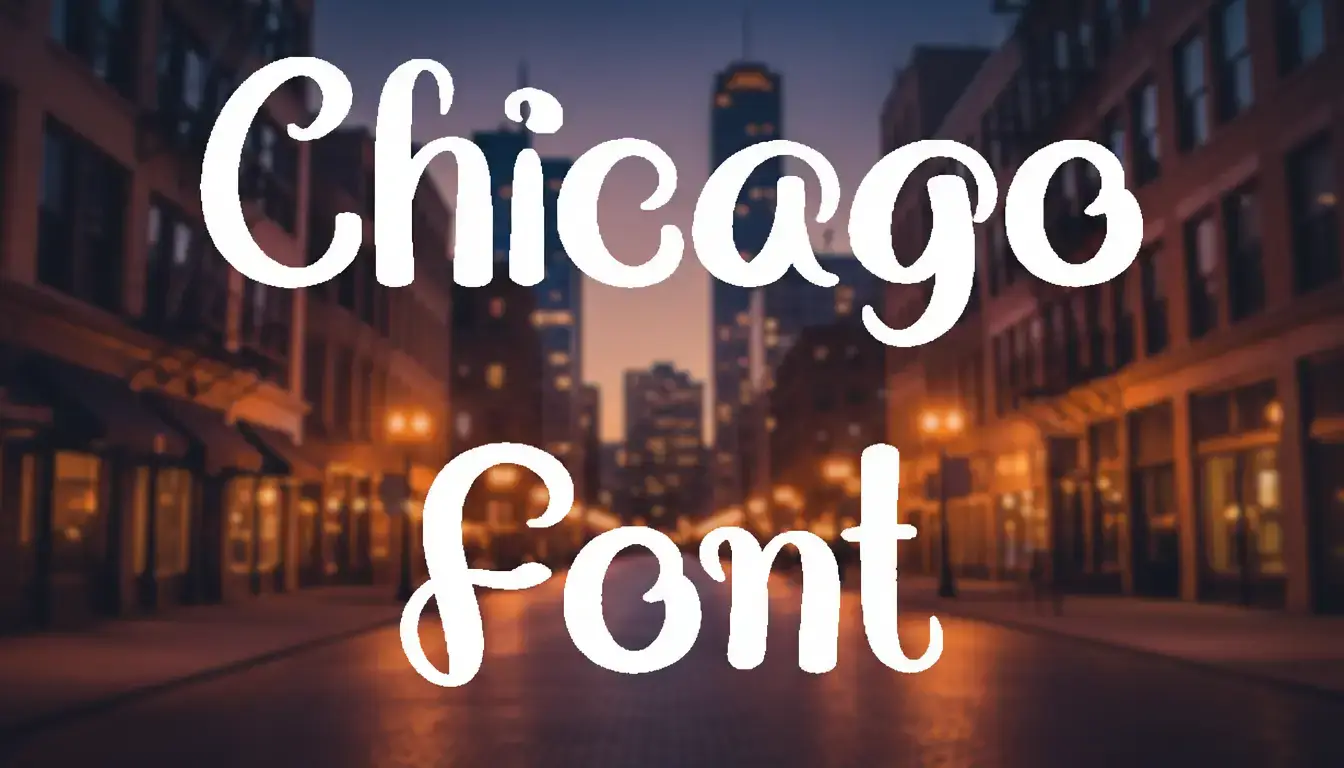
Chicago Font
Chicago
Chicago is a fancy font. It's a decorative display font with plenty of personality, made to grab attention. It's a free download, and you can try it with your own text in the preview above first.
What You Can Type With Chicago
You get every letter from A to Z in both cases and all the numbers from 0 to 9, which means Chicago can handle full sentences, dates and prices. Everyday marks like &, !, ? and @ are there too. Thanks to its accented letters, it also works for Spanish, French, German, Portuguese and Italian, not just English.
Where Chicago Works Best
Chicago is a natural fit for posters, logos and eye-catching headlines. Use it for one standout word or headline and let simpler fonts handle the rest.
Does Chicago support accented letters?
Yes. Chicago includes the accented letters needed for Spanish, French, German, Portuguese and Italian, so it works for more than just English.